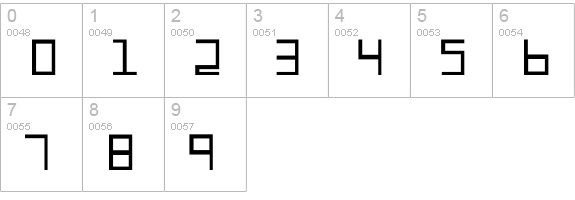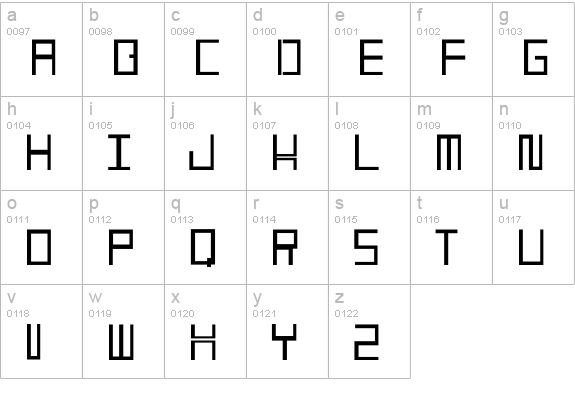
486 Regular Font Details
486 Regular is the standard, neutral variant in the 486 typeface family \xE2\x80\x94 well suited to general body text, paragraphs, and standard typographic work.
The 486 Regular font is a versatile and modern typeface that exudes sophistication and elegance. With its clean lines and sharp edges, this font is perfect for a wide range of design projects, from branding to editorial layouts. Its timeless appeal makes it suitable for both digital and print applications. What sets the 486 Regular font apart is its seamless blend of classic and contemporary elements, giving your text a unique and stylish look. Whether used for headlines, body text, or logos, this font brings a touch of refinement to any design. And the best part? The 486 Regular font is completely free to download at FontsMarket.com. So go ahead and elevate your designs with this exceptional typeface today!